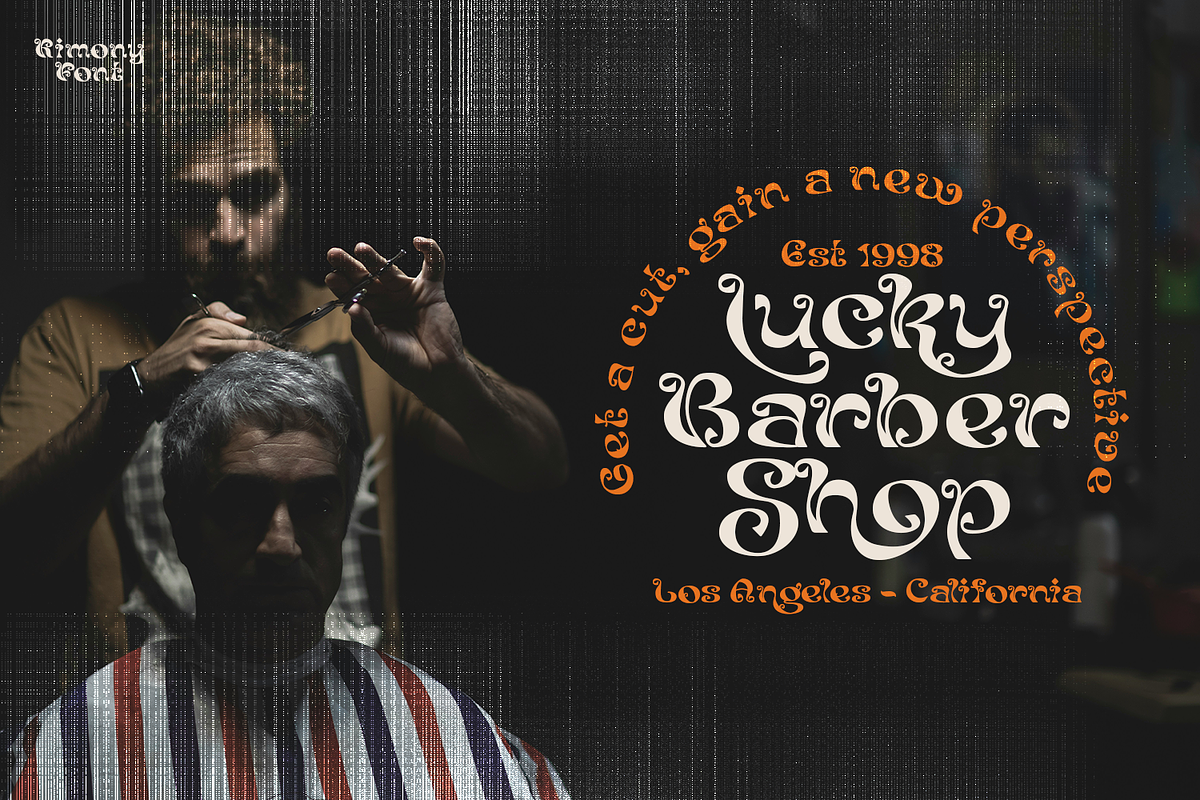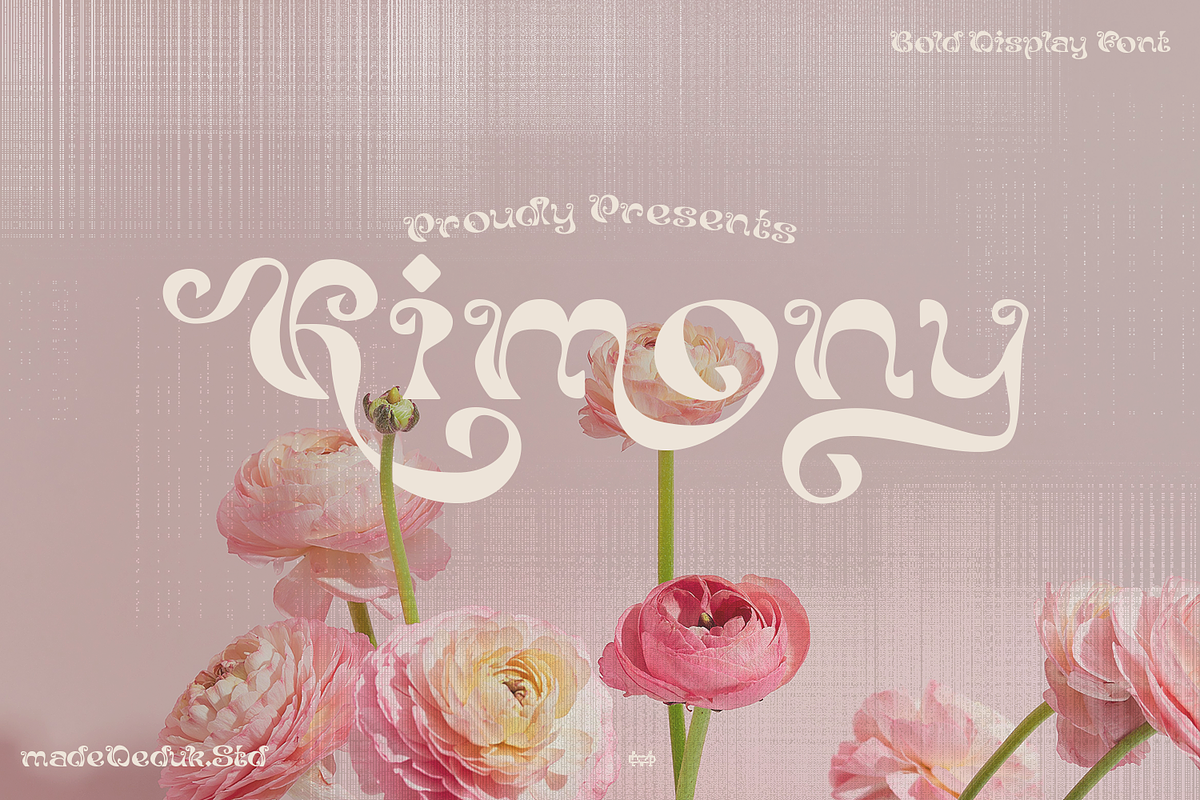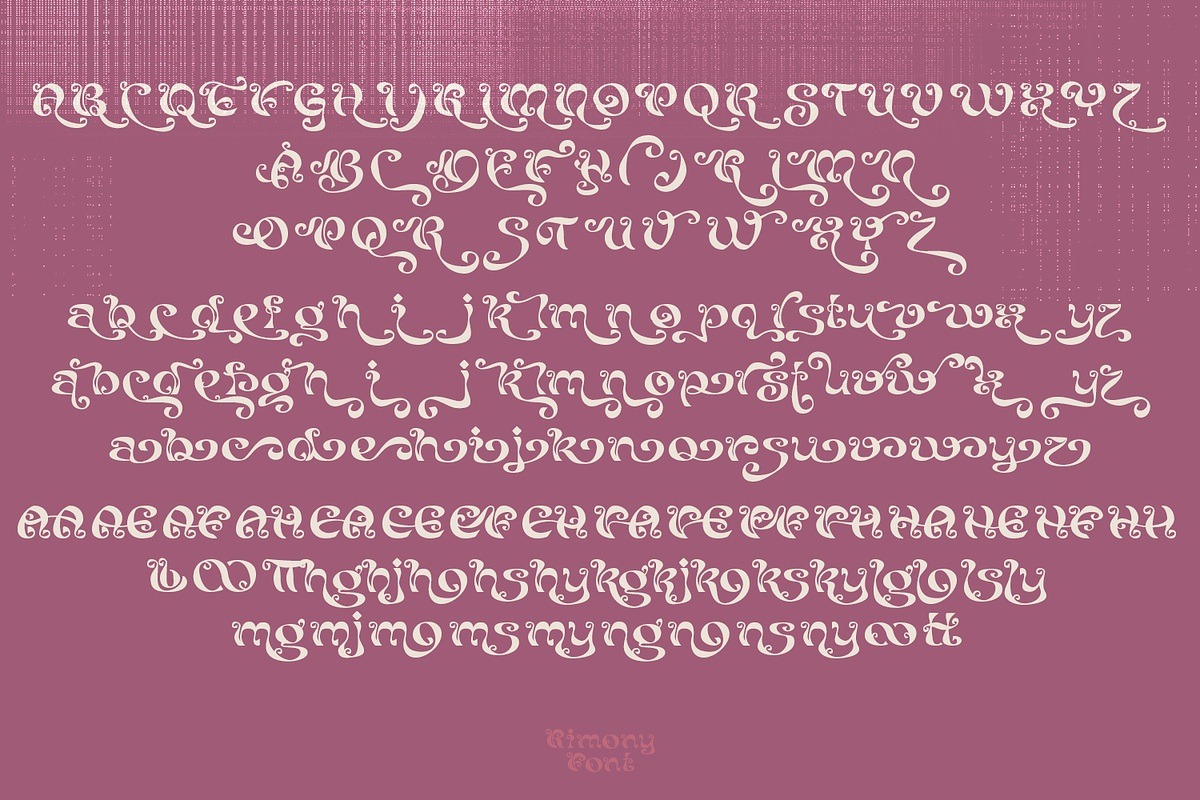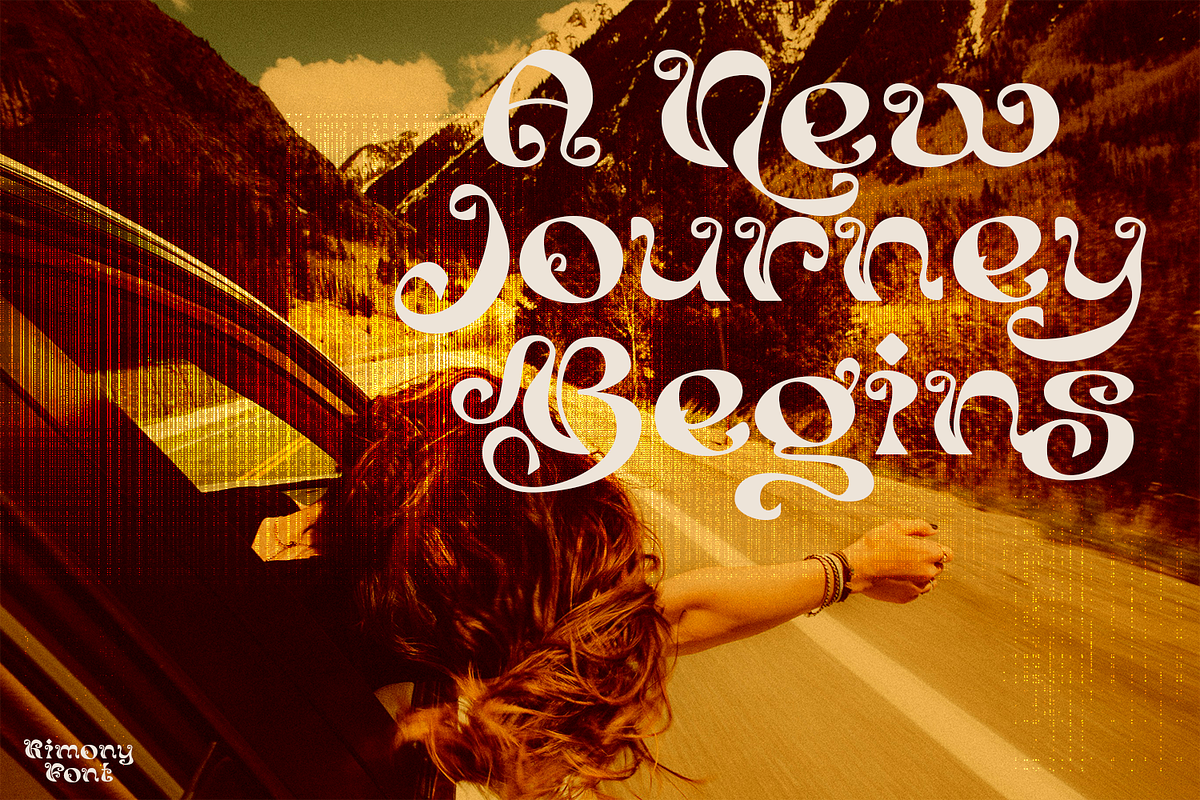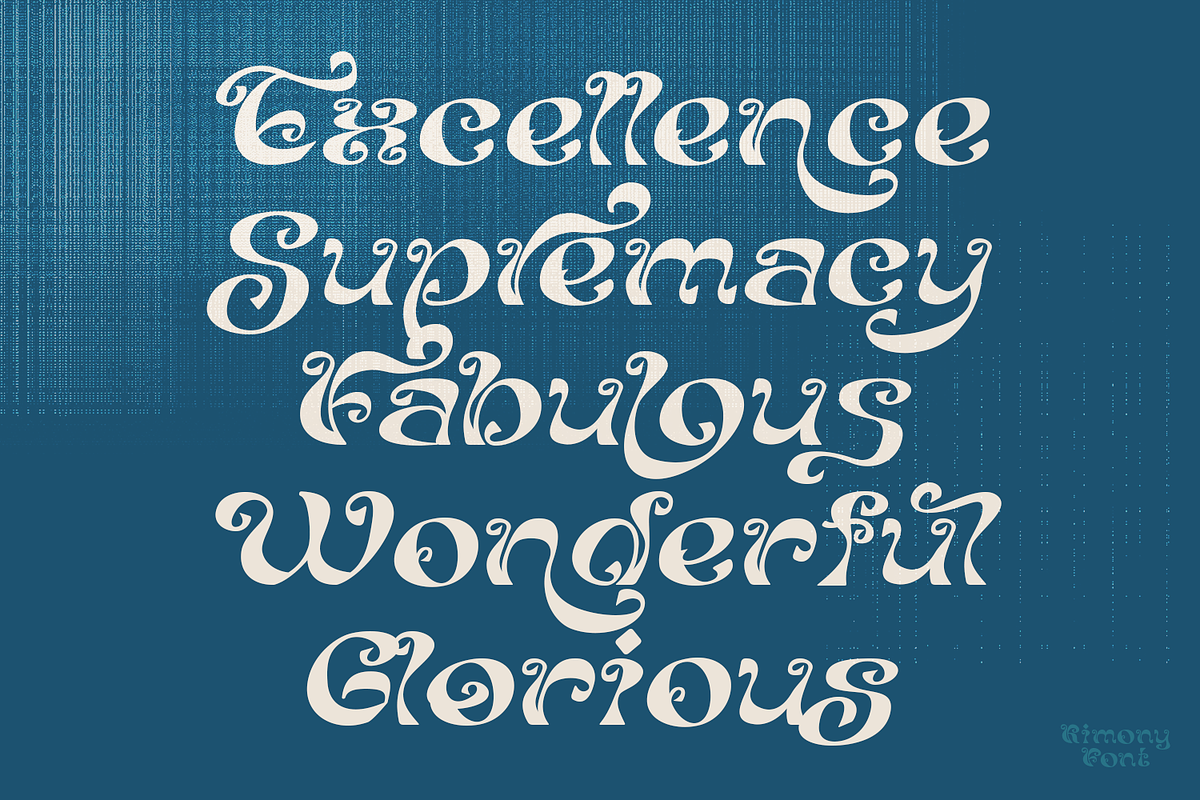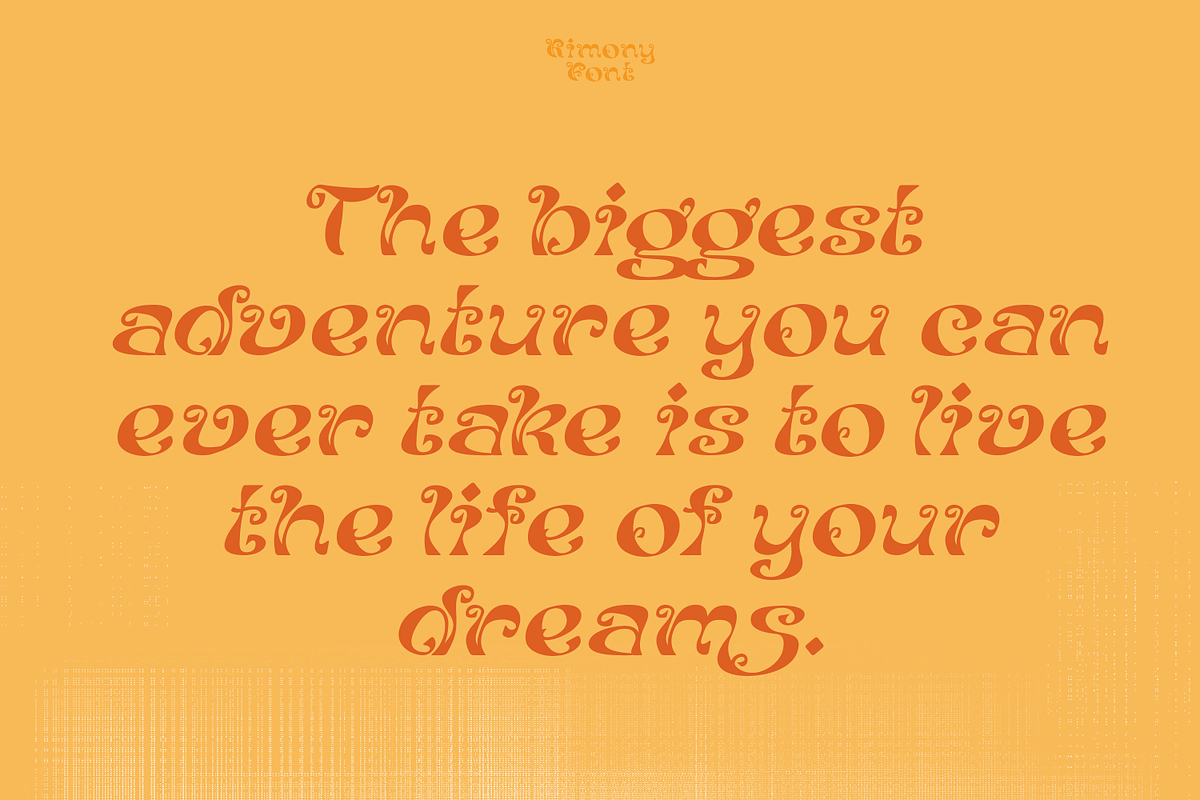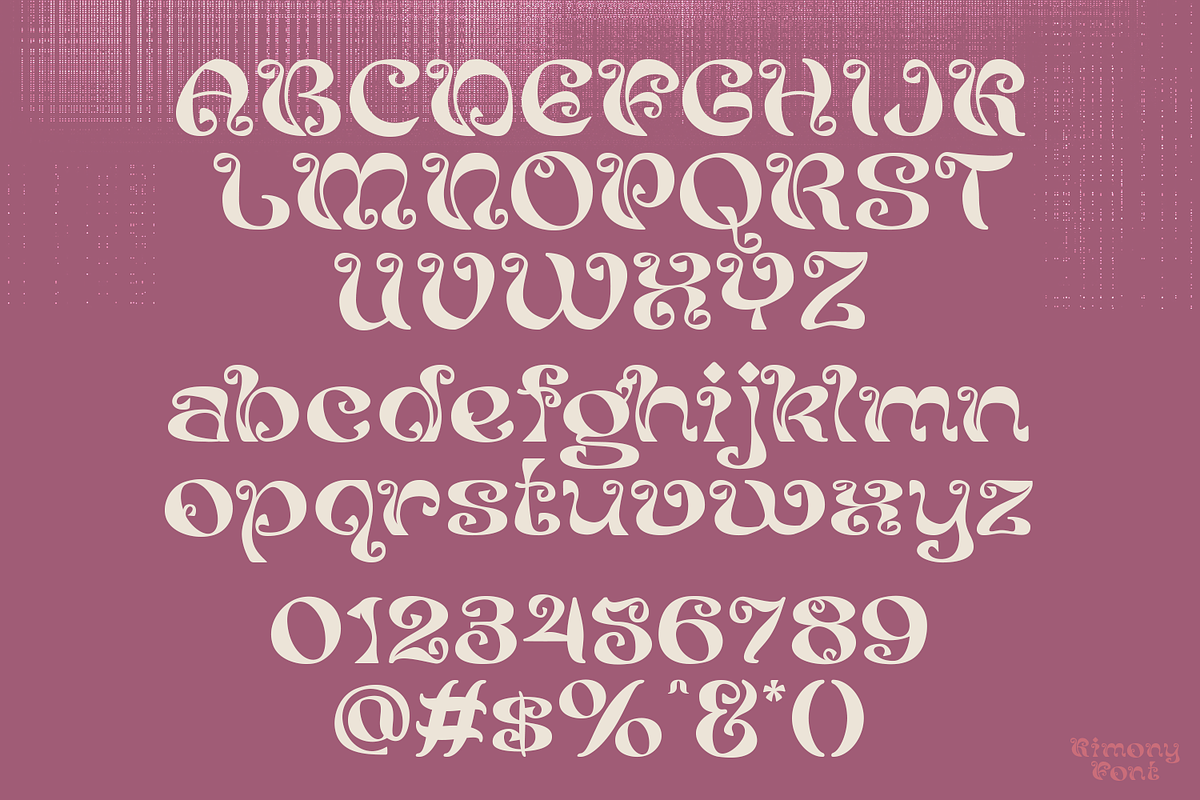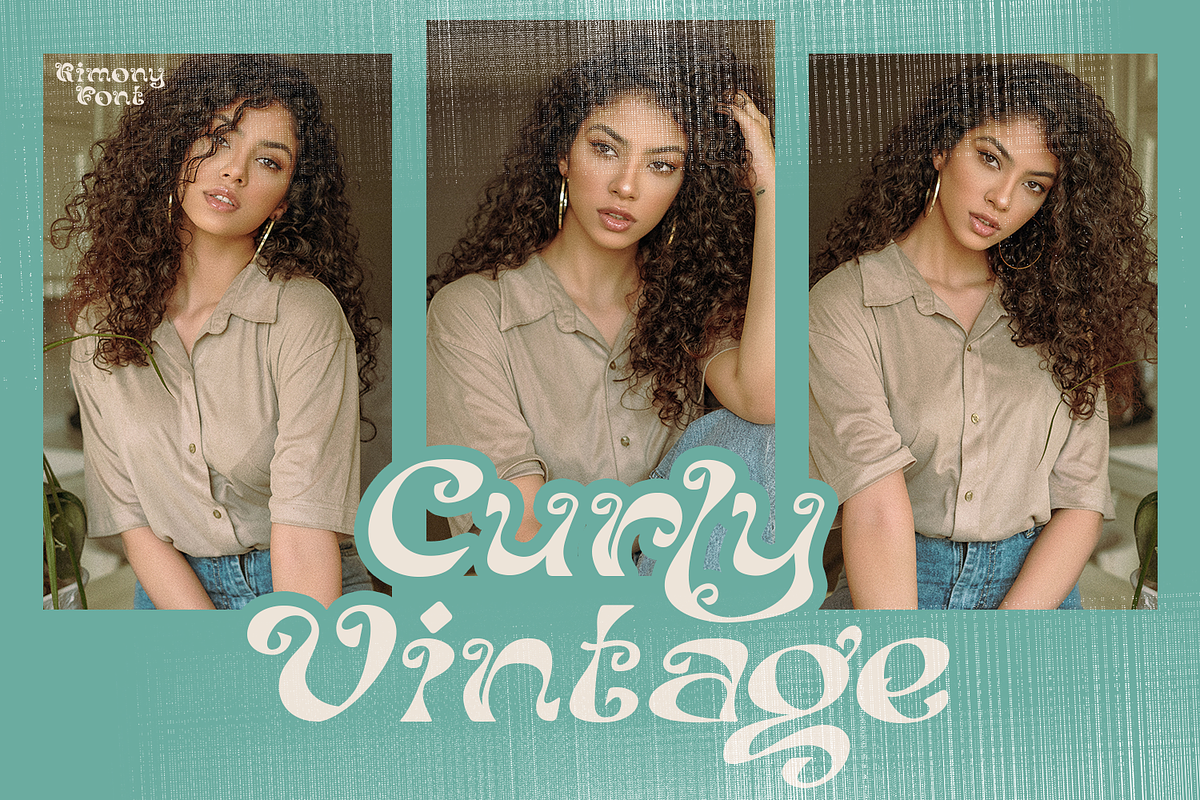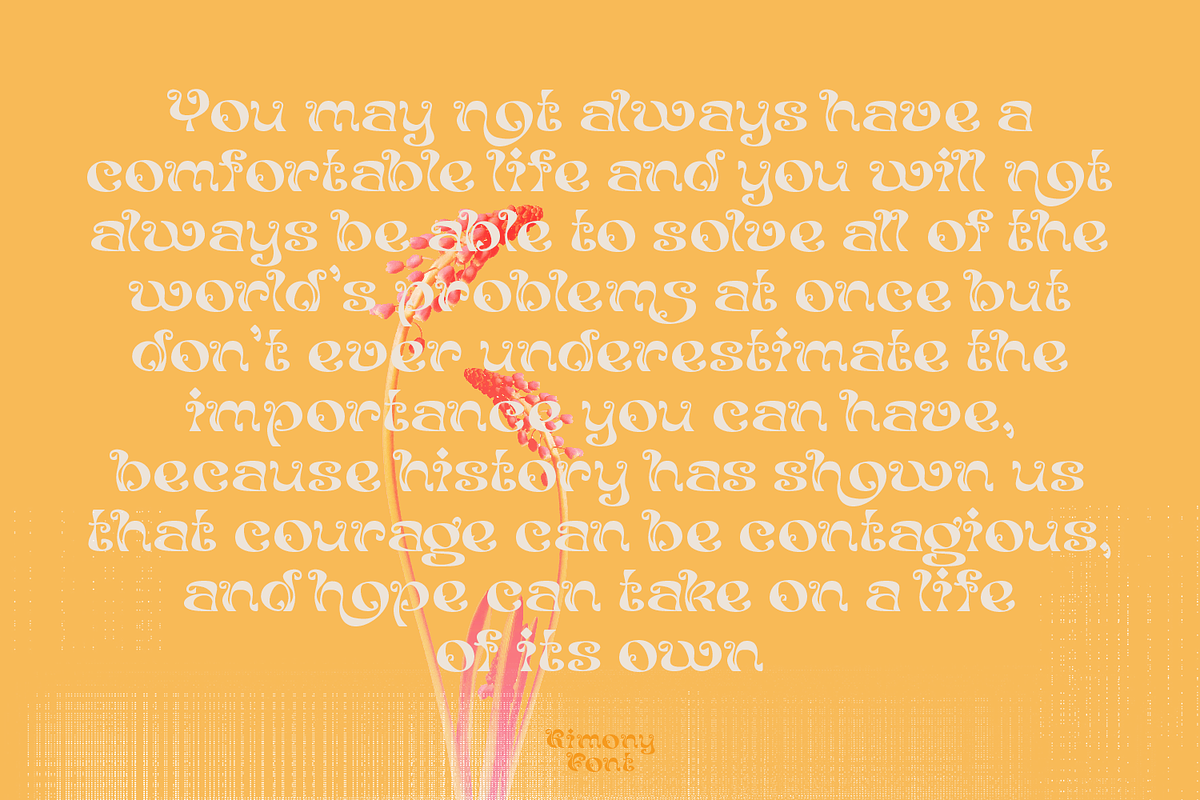
Kimony Display Font
Kimony bold display font inspired by the typography from 70's style, vintage look high contrast serif that is at home in high-end fashion and cultural environments you can explore and combine. This font is very perfect for many display purposes in your product design if you want to a vintage and classic style. Such as book covers, product labels, logos badges, drink bottles, tattoo shop, coffee shops, fashion products, wedding invitation, etc.